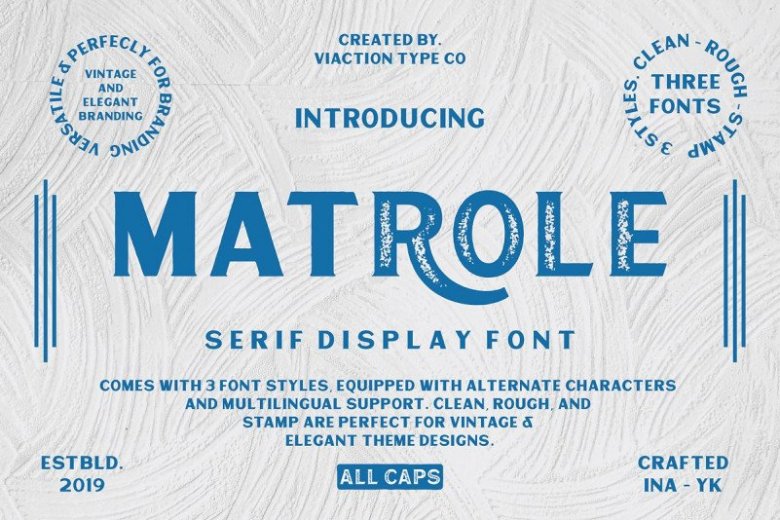
Matrole Display Font
Say Hello Guy’s. Thank you for looking Matrole Font. A classic serif font, perfect for creating bold & gorgeous designs. It’s adds timeless beauty, heavenly curves and a classic appearance to any project.
Matrole Display is a serif with 3 styles clean, rough & stamp, nice applied in various products. Complete with multilingual characters and stalistic alternates. It is suitable for quote, clothing design, vintage logo, label, poster, packaging design and other designs.